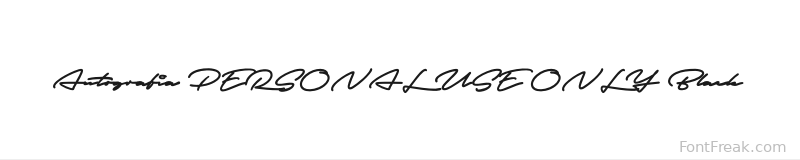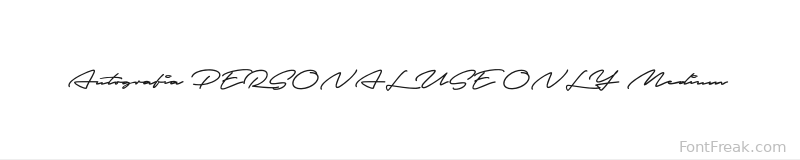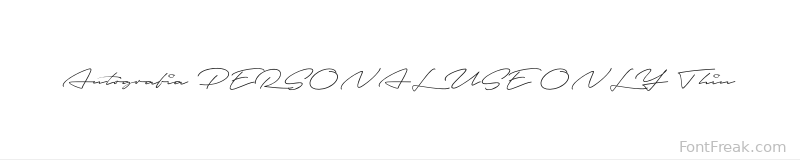
Autografia PERSONAL USE ONLY Black
About Autografia PERSONAL USE ONLY Black
Autografia PERSONAL USE ONLY Black by Mans Greback is a captivating script font that exudes elegance and sophistication. This font features a handwritten style, characterized by its fluid strokes and dynamic letterforms. The stroke weight varies dramatically, providing a beautiful contrast that enhances its artistic appeal. The letters are well-spaced, allowing for optimal readability while maintaining a sense of personal touch. This font is perfect for various decorative projects due to its ornate yet legible design.
Ideal use cases for Autografia PERSONAL USE ONLY Black include wedding invitations, where its romantic flair can add a special touch to the occasion. It is also well-suited for movie posters, giving an artistic edge that draws attention to the film's title. Additionally, this font can enhance restaurant menus, providing a stylish presentation that complements the dining experience. Content creators will find it useful for social media graphics, particularly for quotes or announcements that require a personal touch. Graphic designers will appreciate its versatility, making it a valuable addition to their typography toolbox.
The target audience for this font includes graphic designers, small business owners, and content creators who seek an eye-catching, handwritten aesthetic. Its unique character makes it a fitting choice for anyone looking to add a personal and creative flair to their projects.
What sets Autografia PERSONAL USE ONLY Black apart is its ability to convey emotion and warmth through its design. This font encapsulates the essence of personal expression, making it a standout choice for anyone who desires to leave a lasting impression. For those interested, Autografia PERSONAL USE ONLY Black font free download is available, allowing you to explore its beauty in your creative endeavors.